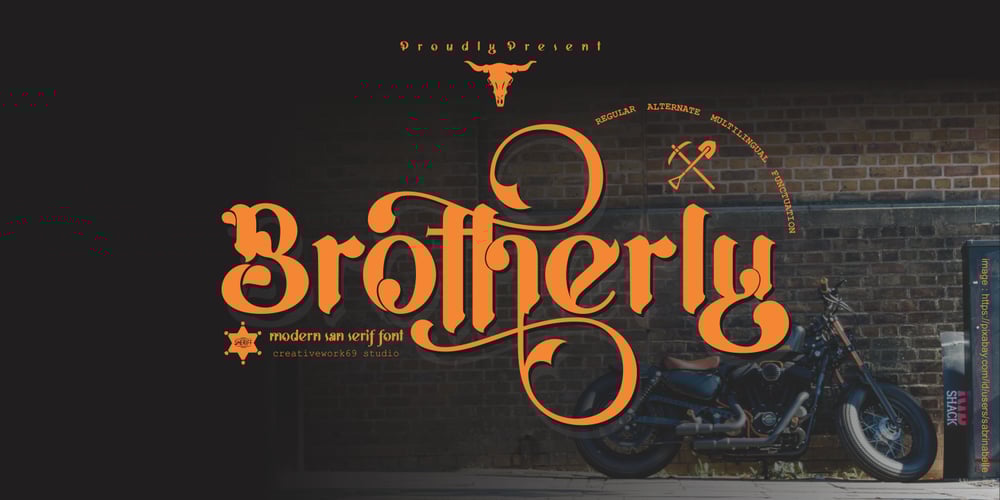
Brotherly Font Family was designed by Daddi Daryawan and published by Creativework Studio. Brotherly contains 1 styles and family package options. Brotherly is a modern san serif font that is very different from the standard san serief form in general, this font is more artistic so it is very flexible to use for various design project needs, both formal and non-formal, but this font is based on the basic san serief font. easy to read and clear.